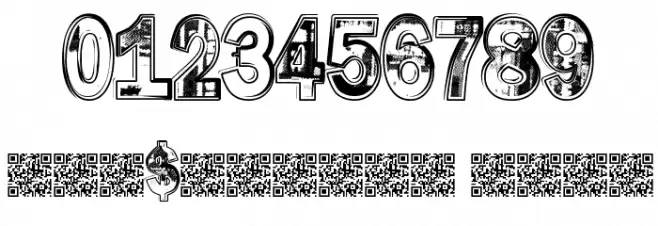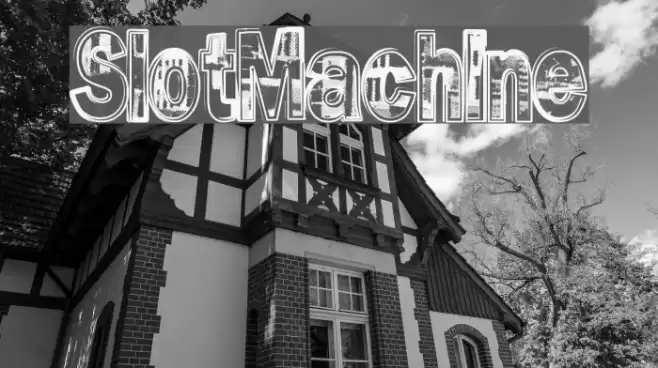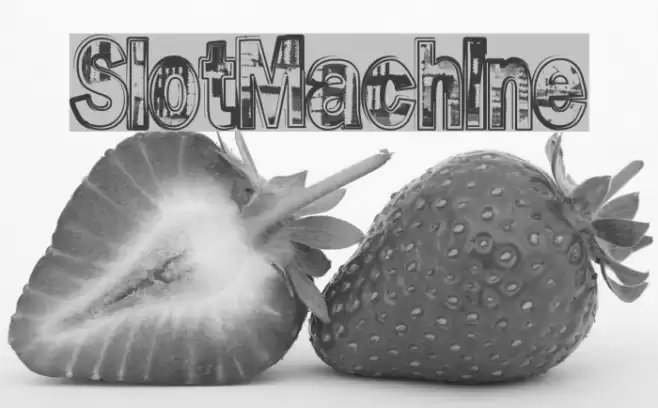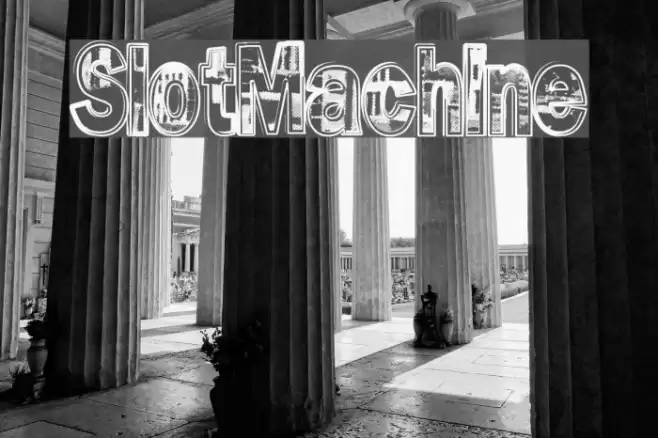
SlotMachine Font
SlotMachine Description
This font features a bold, decorative style with a distressed, textured appearance that gives it a vintage and rugged feel. The characters are outlined with a thick border, enhancing their boldness and making them stand out. The inner texture of each letter and number appears worn and weathered, reminiscent of old signage or vintage slot machines. This unique design adds a layer of depth and character, making it suitable for projects that require a strong visual impact. The uppercase and lowercase letters maintain consistent styling, while the numerals and special characters complement the overall aesthetic.
| Overall Style | Vintage |
| Proposed Projects | Ideal for vintage-themed posters, retro branding, signage, and creative design projects that require a bold statement. |